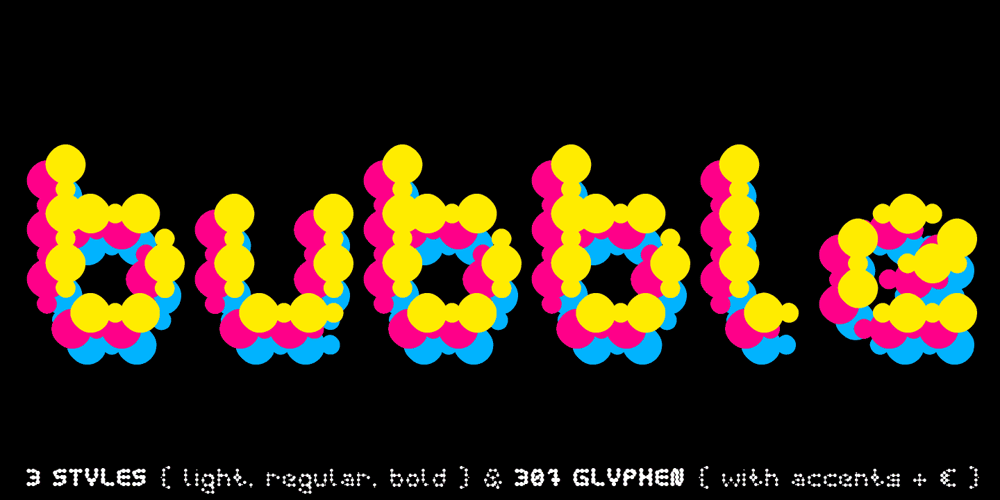
Curly Lava Bubble Font Family was designed by Manuel Viergutz and published by TypoGraphicDesign. Curly Lava Bubble contains 3 styles and family package options. CONCEPT/ CHARACTERISTICS The lava/soap/pudding character of the font reminds us of a modern bitmap pixel font. »Curly lava bubble« goes even further. The rectangular hard edges expands to soft and almost organic forms. APPLICATION AREA The fancy, modern & decorative font »curly lava bubble« would look good at display size for party flyer & movie poster, music covers or headlines in magazines or websites… TECHNICAL SPECIFICATIONS Headline Font | Display Font | Decorative Font »curly lava bubble« with 3 stlyes (light, regular, bold) & 305 glyphs inkl. accents & € KONZEPT/BESONDERHEITEN Der Lava/Seifenblasen/Pudding Charakter der Schrift lässt an eine moderne Bitmap Pixel Schrift erinnern. Wobei »curly lava bubble« noch weiter geht und die harten rechteckigen Kanten zu weichen und fast schon organischen Formen ausbaut. EINSATZGEBIETE Der Font würde sich über folgende Gebiete sehr freuen und sich dort wohl fühlen: Logos/Wortmarken aller Art, Flyer für fast jede Party, PlattenCover, CD-Cover, PlakatDesign, Game- und Videospiel-Design aller Genres, als Headlineschrift für print und digitale Magazine, Bücher, Webseiten… TECHNISCHE INFORMATIONEN Headline Font | Display Font | Deko Font »curly lava bubble« OpenType Font mit 3 Schriftschnitten (light, regular, bold) & 305 Glyphen inkl. diakritisches Zeichen & €